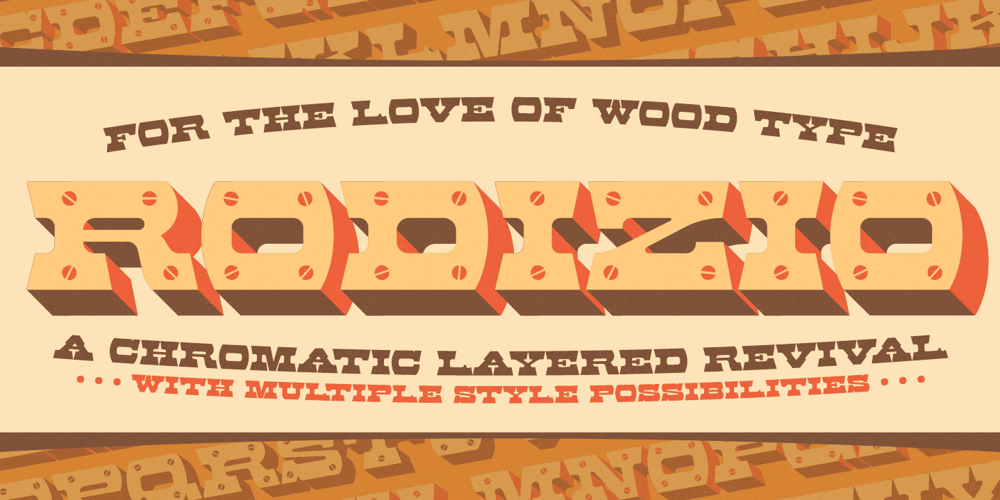
MFC Rodizio Font Family was designed by Jim Lyles, Brian J. Bonislawsky and published by Monogram Fonts Co.. MFC Rodizio contains 9 styles and family package options. MFC Rodizio makes a departure from our classic monogram font designs. It is a standard all-caps font, with the full complement of characters and it is based on an original wood type. The source of inspiration for MFC Rodizio was compiled from several William H. Page type specimens dating back to 1880. We revived and expanded the typestyle to a multi-language capable font the original design, added as a layering variant the “screwed” style of the original, and further developed the design with chromatic dimensional layering that did not exist in the original design. Download and view the MFC Rodizio Guidebook if you would like to learn a little more.